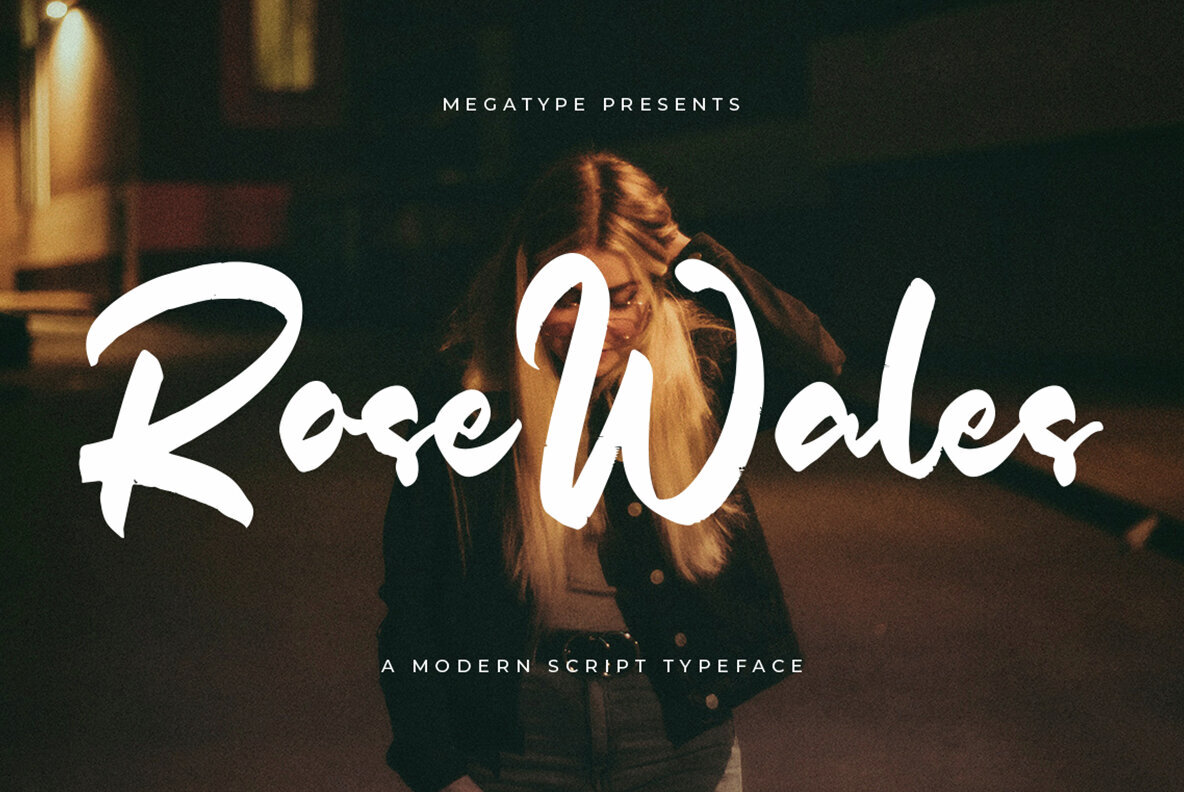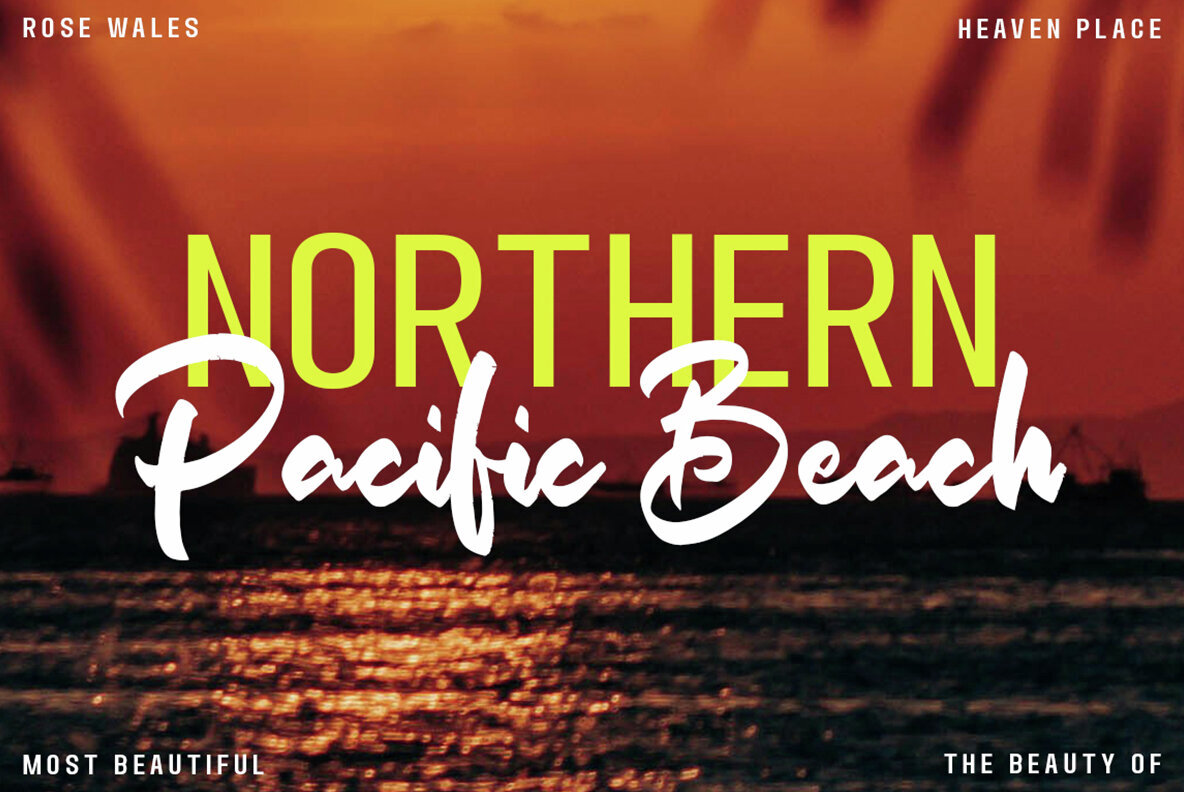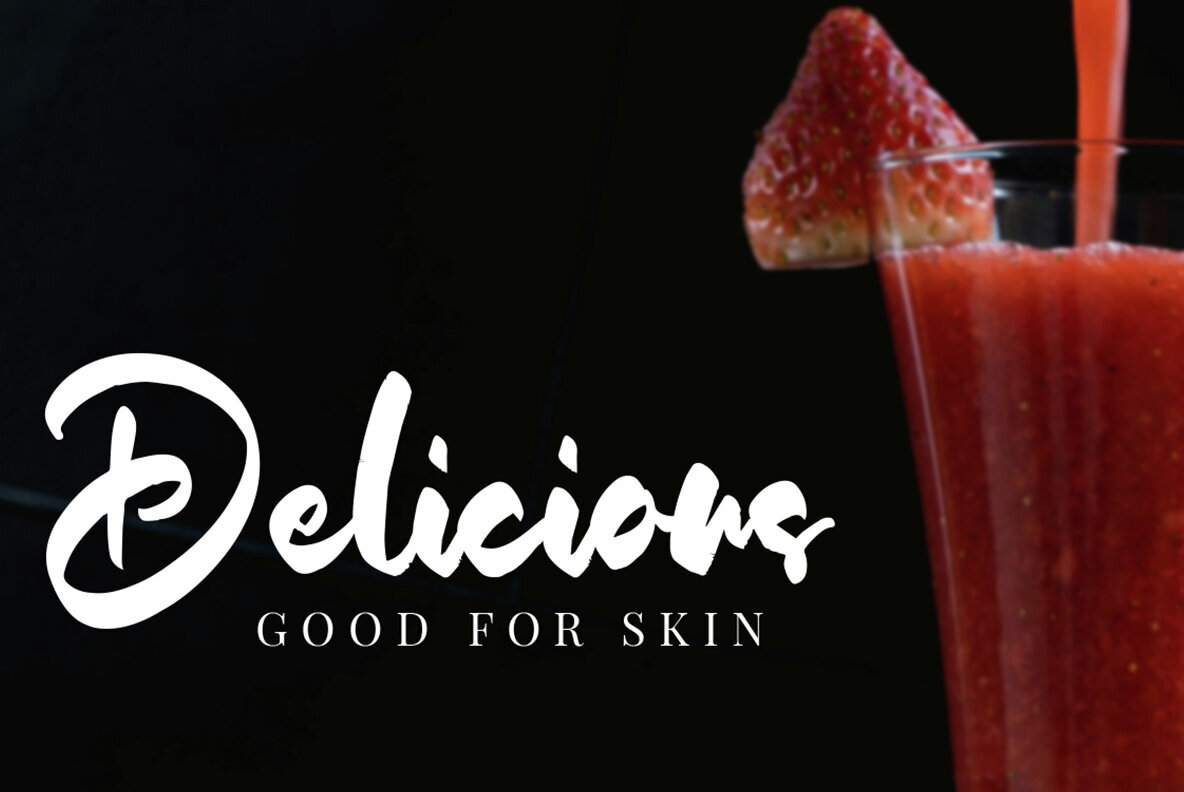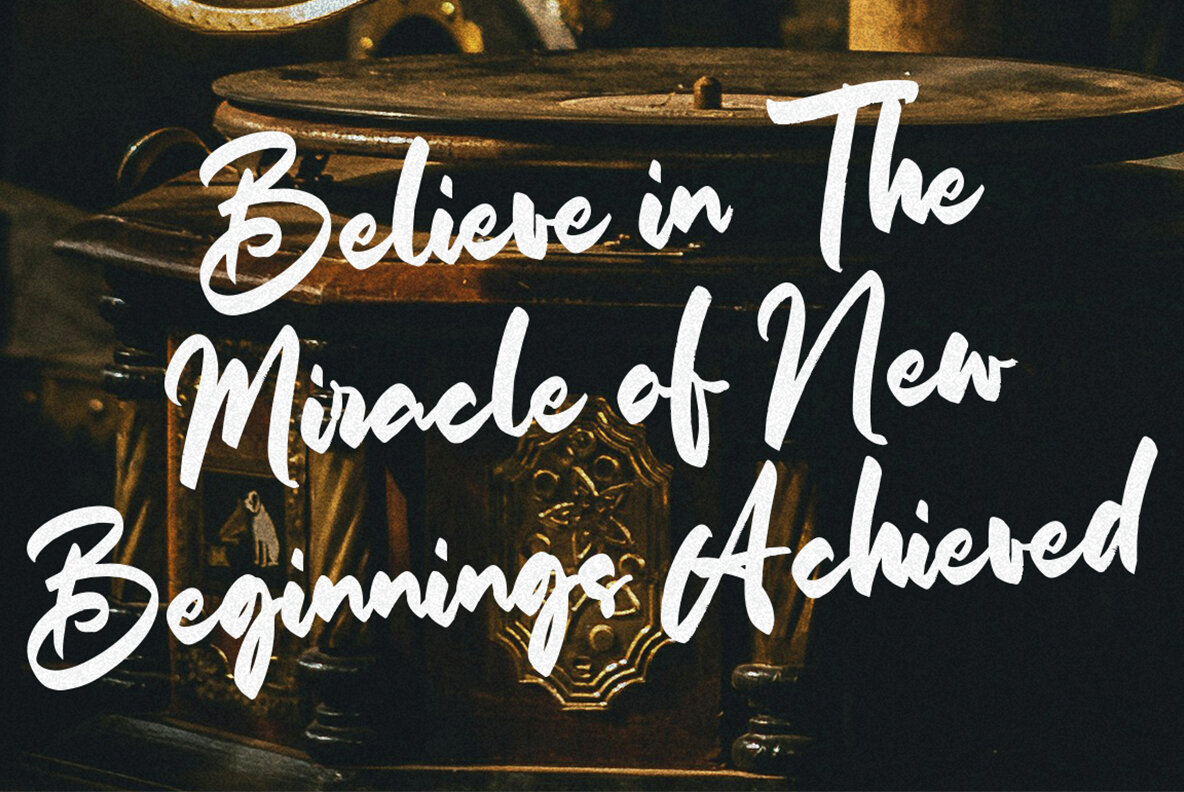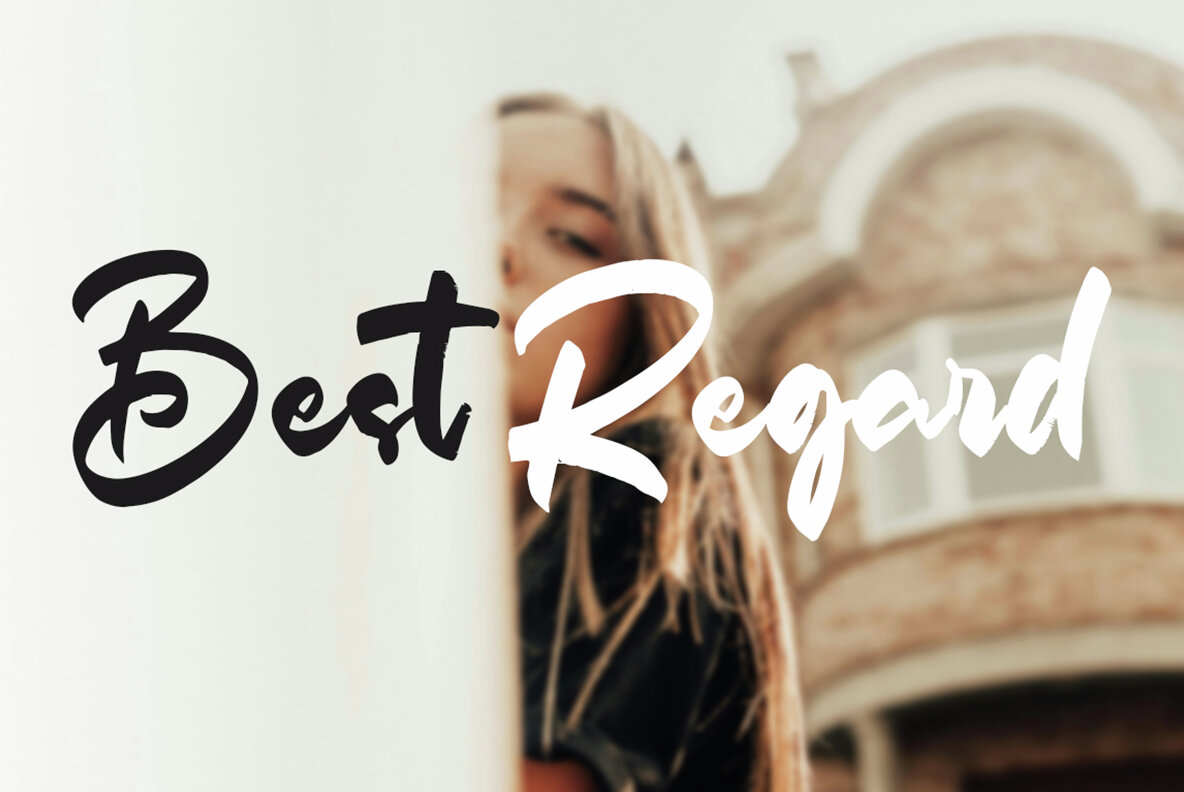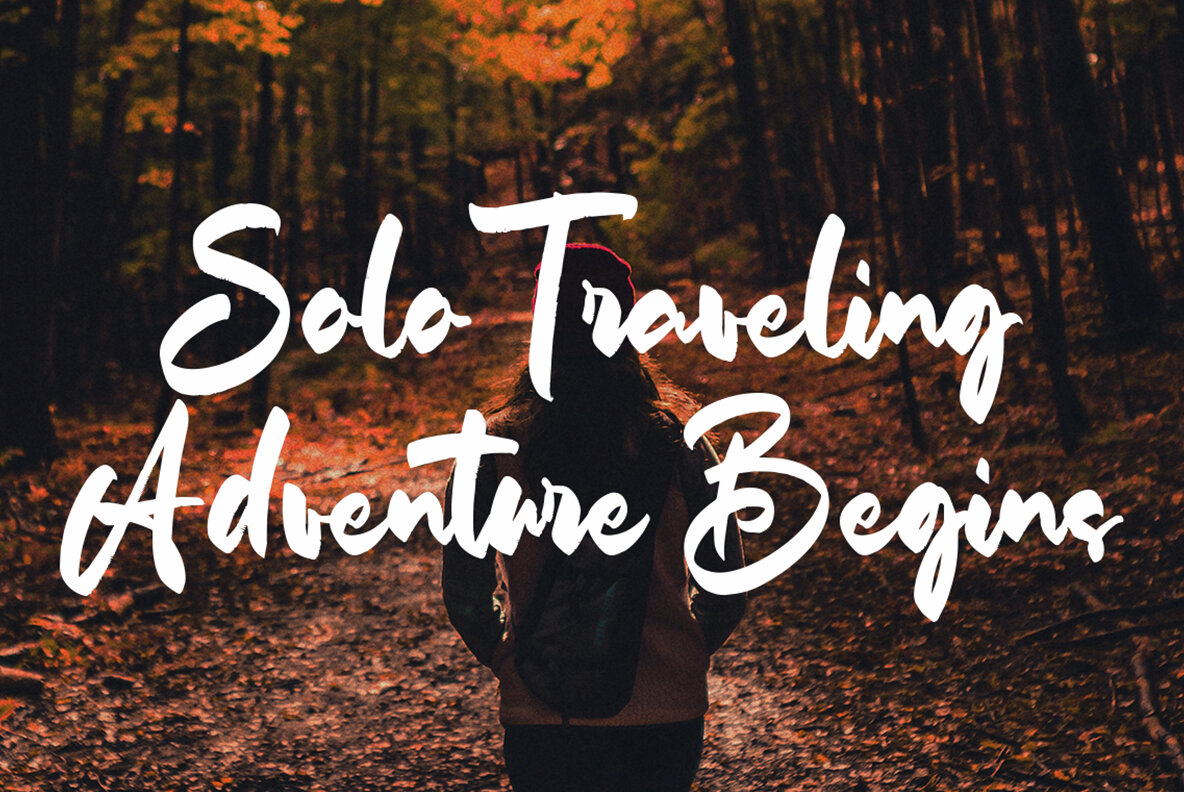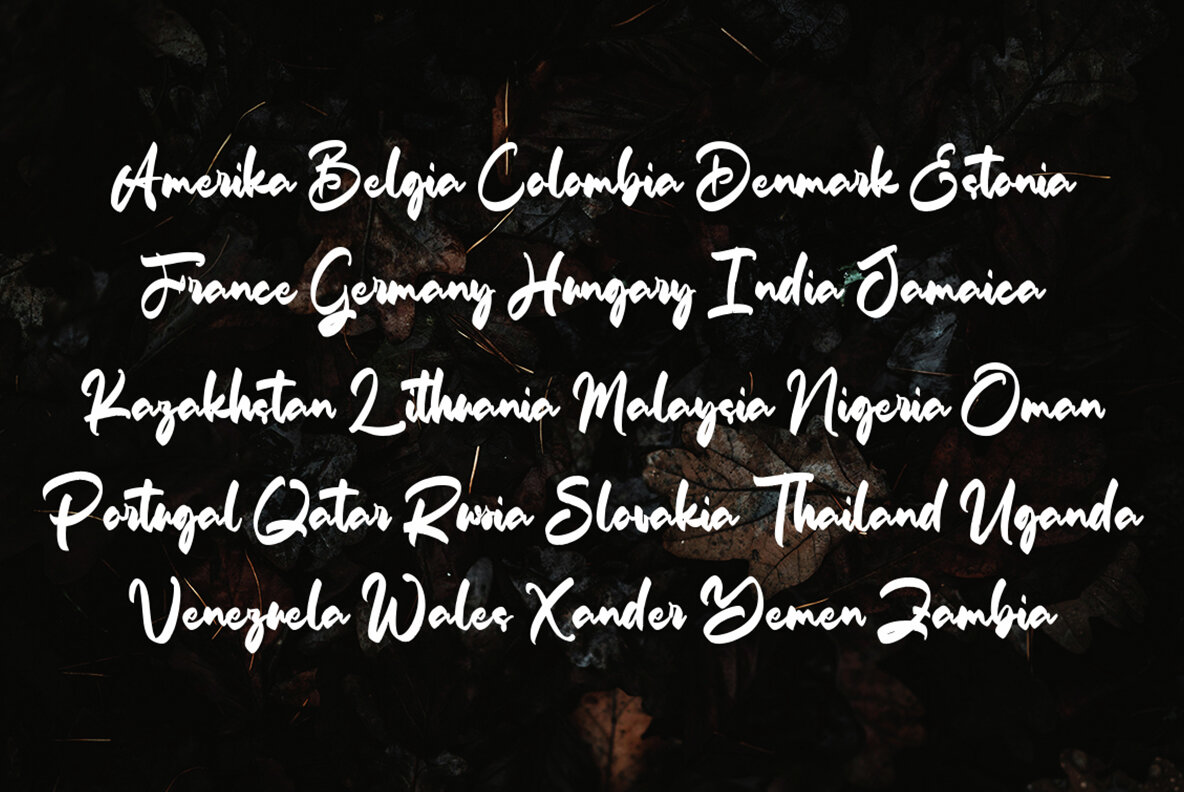
Rose Wales Font
Rose Wales Regular
Rose Wales is a modern script typeface that offers an elegant look paired with natural, handwritten nuances. Highlighted by smooth, flowing strokes and subtly rugged brush textures, this font stands out with a refined balance of grace and authenticity. Each letterform combines stylish curves with readability, capturing a charming blend of casual and chic. The dynamic contrast and slight imperfections give Rose Wales a distinctly human quality, appealing to those seeking depth in both digital and print design. This typeface is ideal for projects that aim for a personal, emotional, or artisanal touch. From wedding invitations and fashion branding to social media graphics and packaging, Rose Wales infuses a handcrafted, modern sophistication into any setting. Its versatility and visual warmth make it a reliable choice for designers who value authenticity alongside elegance.Rose Wales: Modern Script Font with Handwritten Elegance